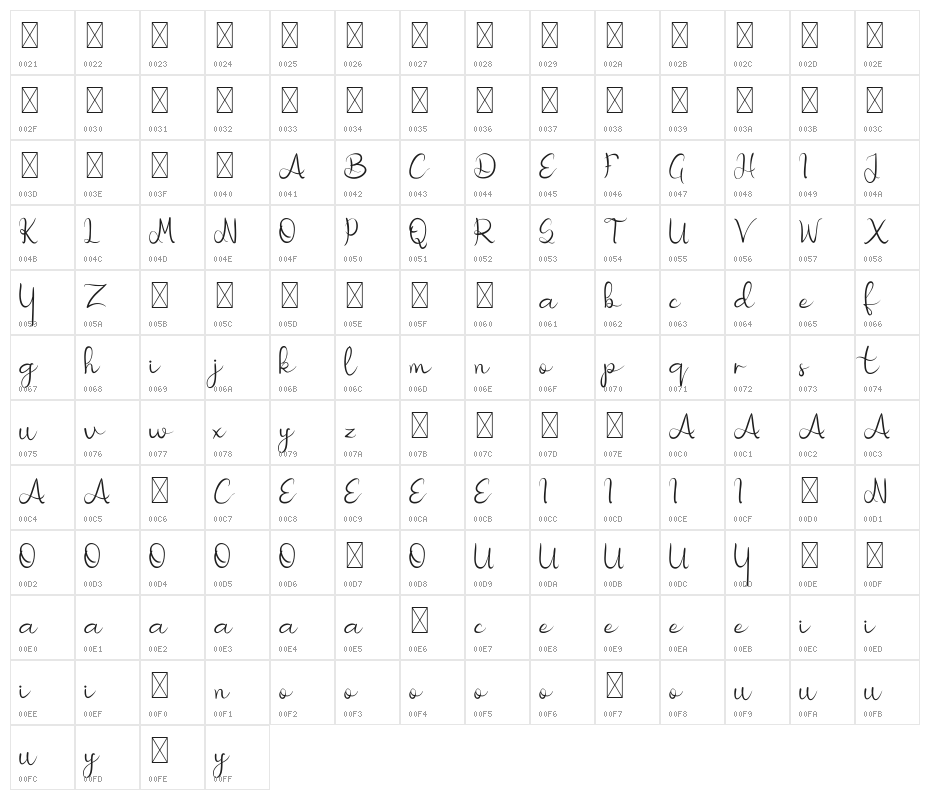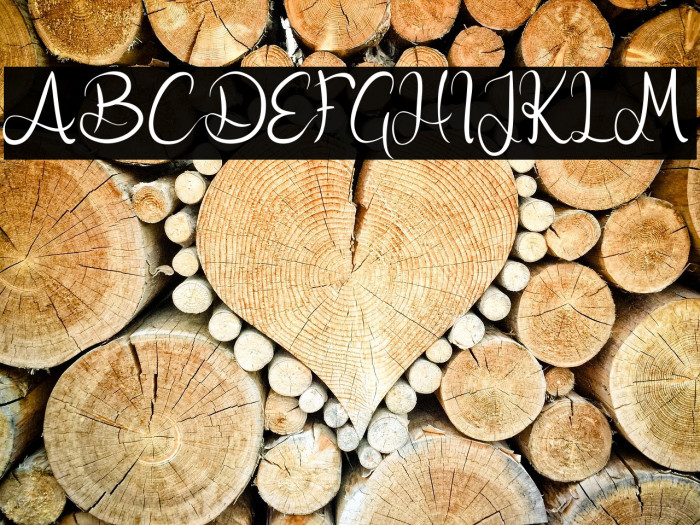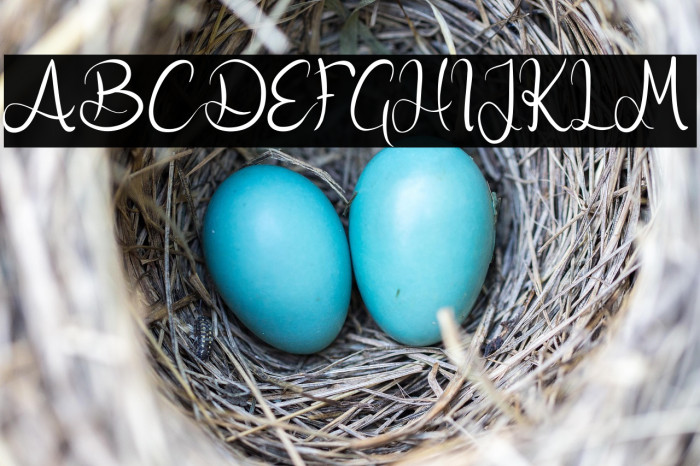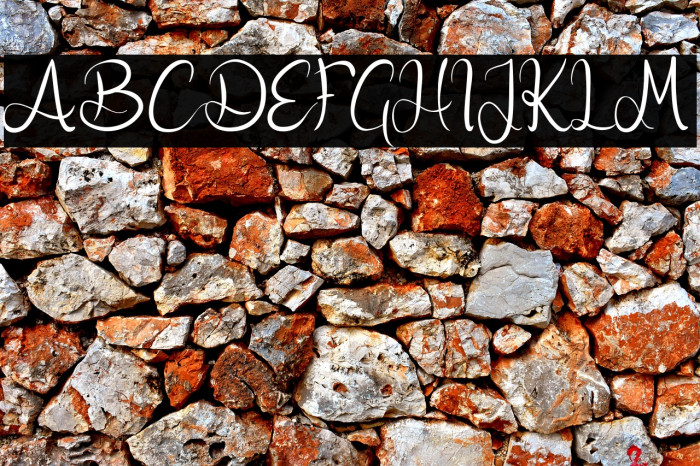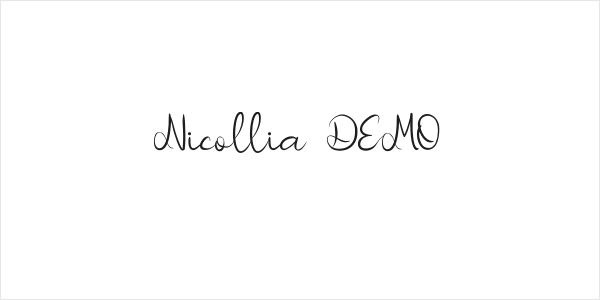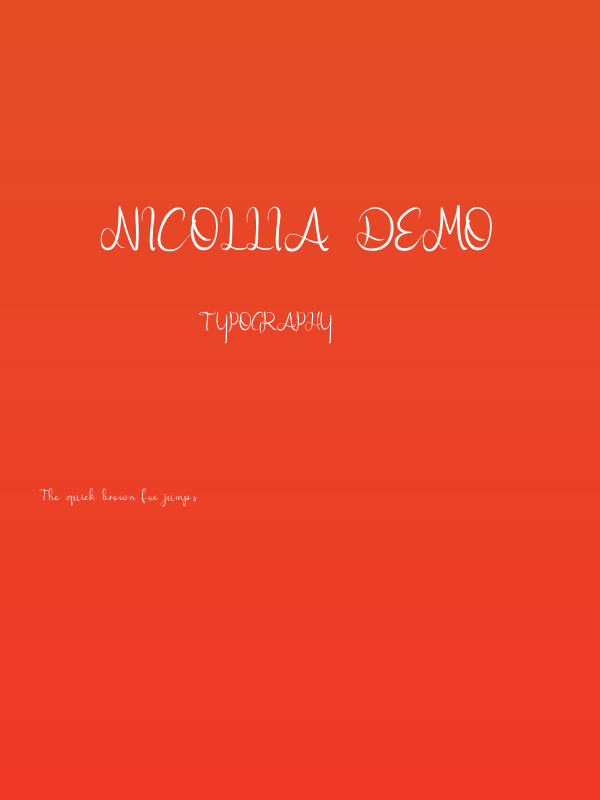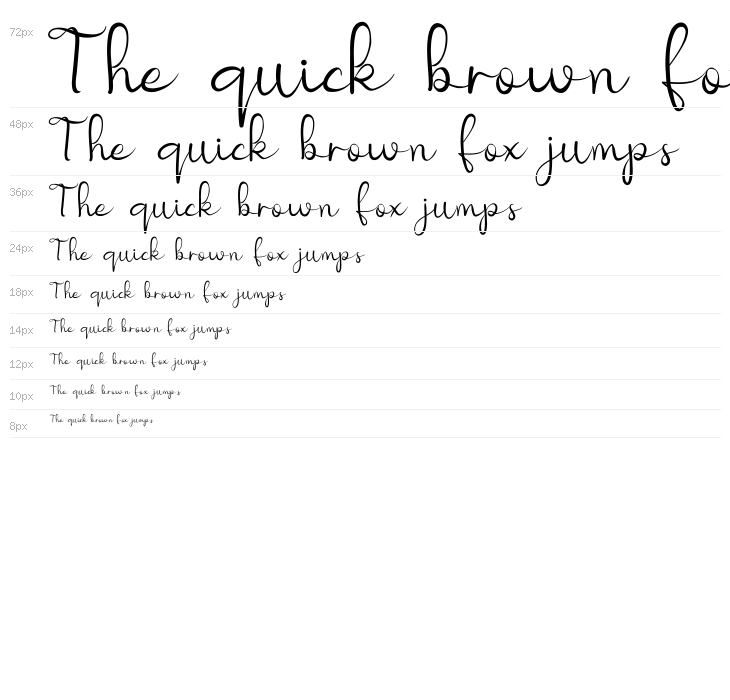
Nicollia DEMO Font
Nicollia DEMO Description
This elegant script font features a flowing, cursive style with smooth, connected strokes that create a sense of fluidity and grace. The uppercase letters are characterized by their tall, sweeping ascenders and decorative loops, while the lowercase letters maintain a consistent rhythm with gentle curves and rounded forms. The overall appearance is sophisticated and artistic, making it suitable for projects that require a touch of elegance. The font's design is both modern and timeless, offering versatility for various creative applications.
| Overall Style | Elegant, Artistic |
| Proposed Projects | Ideal for wedding invitations, greeting cards, branding, and elegant logo designs. |